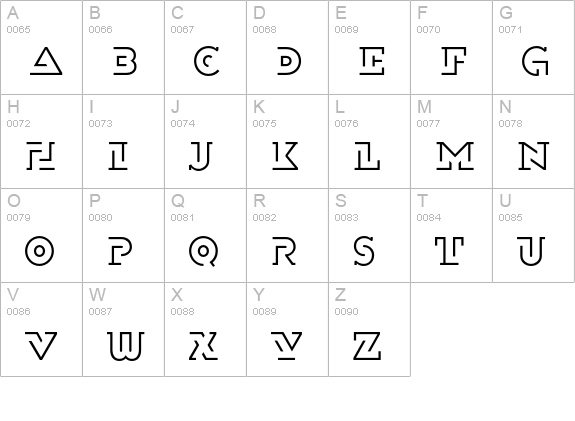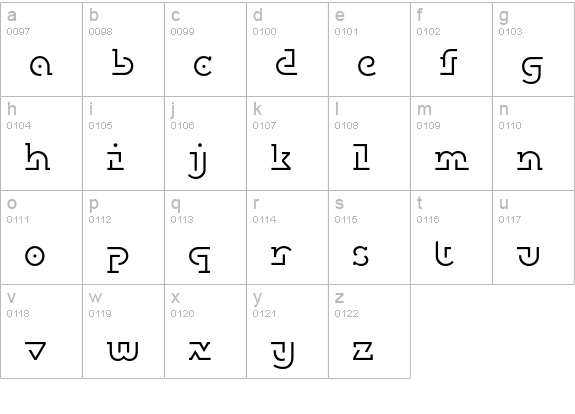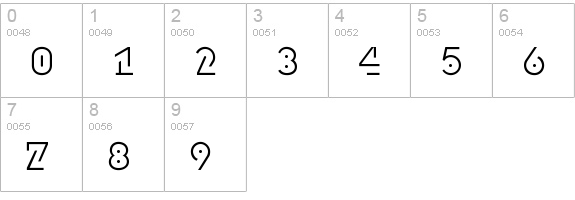
PT DublonBrusLight Cyrillic Font Details
The PT DublonBrusLight Cyrillic font is a beautifully crafted typeface that exudes elegance and sophistication. Its sleek and modern design makes it perfect for a wide range of creative projects, from branding to editorial design. The clean lines and unique character shapes of this font will instantly elevate any text it is applied to, adding a touch of style and professionalism. What sets PT DublonBrusLight Cyrillic font apart is not only its striking visual appeal but also the fact that it is available for free download at FontsMarket.com. This means that you can enjoy the beauty and versatility of this font without any cost, making it an ideal choice for designers and creatives looking to enhance their work without breaking the bank. Whether you are designing a logo, creating a poster, or working on a website, PT DublonBrusLight Cyrillic font is sure to make a lasting impression. Download this stunning typeface today and see how it can take your projects to the next level.